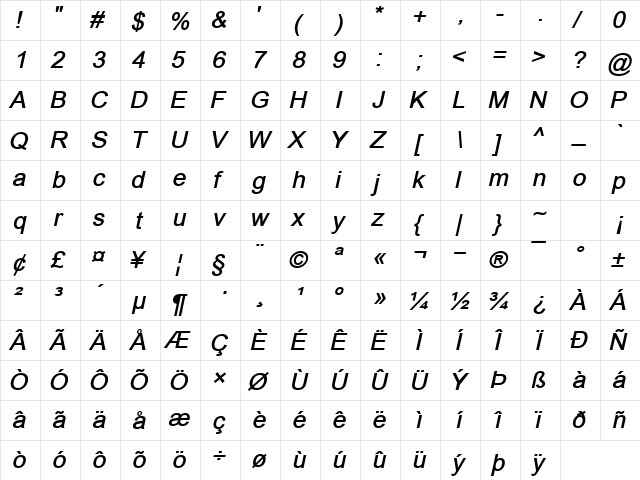
Amaro Arial BoldItalic Font Preview
Amaro Arial BoldItalic
Design Context for Amaro Arial Typeface
Amaro Arial is a composed and adaptable typeface that performs quietly and consistently across a wide range of design contexts. The slanted form adds forward momentum and visual energy. The heavy weight commands attention and anchors typographic hierarchies.
Pro Tip: Try Amaro Arial for annotation and caption copy alongside an upright companion — the contrast in angle creates a dynamic but ordered typographic system.